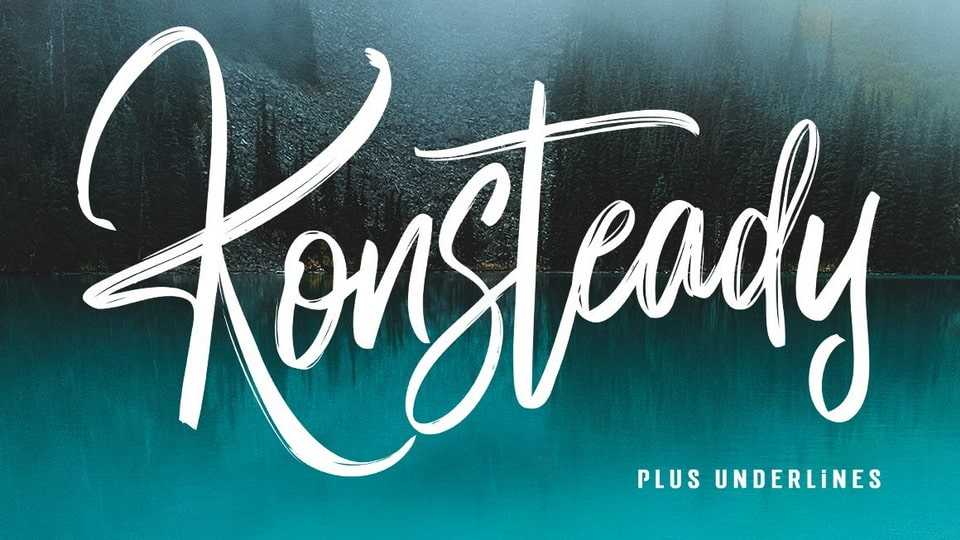
Download Konsteady font, a modern script typeface carefully handcrafted to become a true favorite. This elegant font will look outstanding in any context.